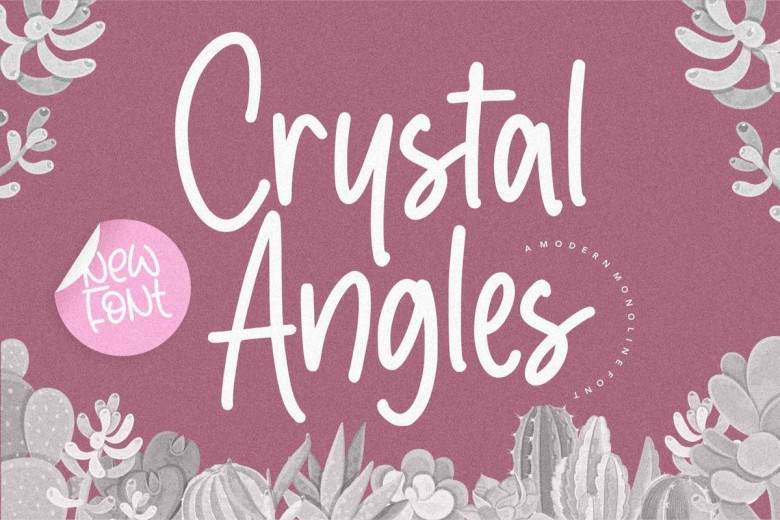
Crystal Angles Monoline Script Font
Crystal Angles is a modern monoline script font. it is perfect for product packaging, branding project, magazine, social media, wedding, or just used to express words above the background.